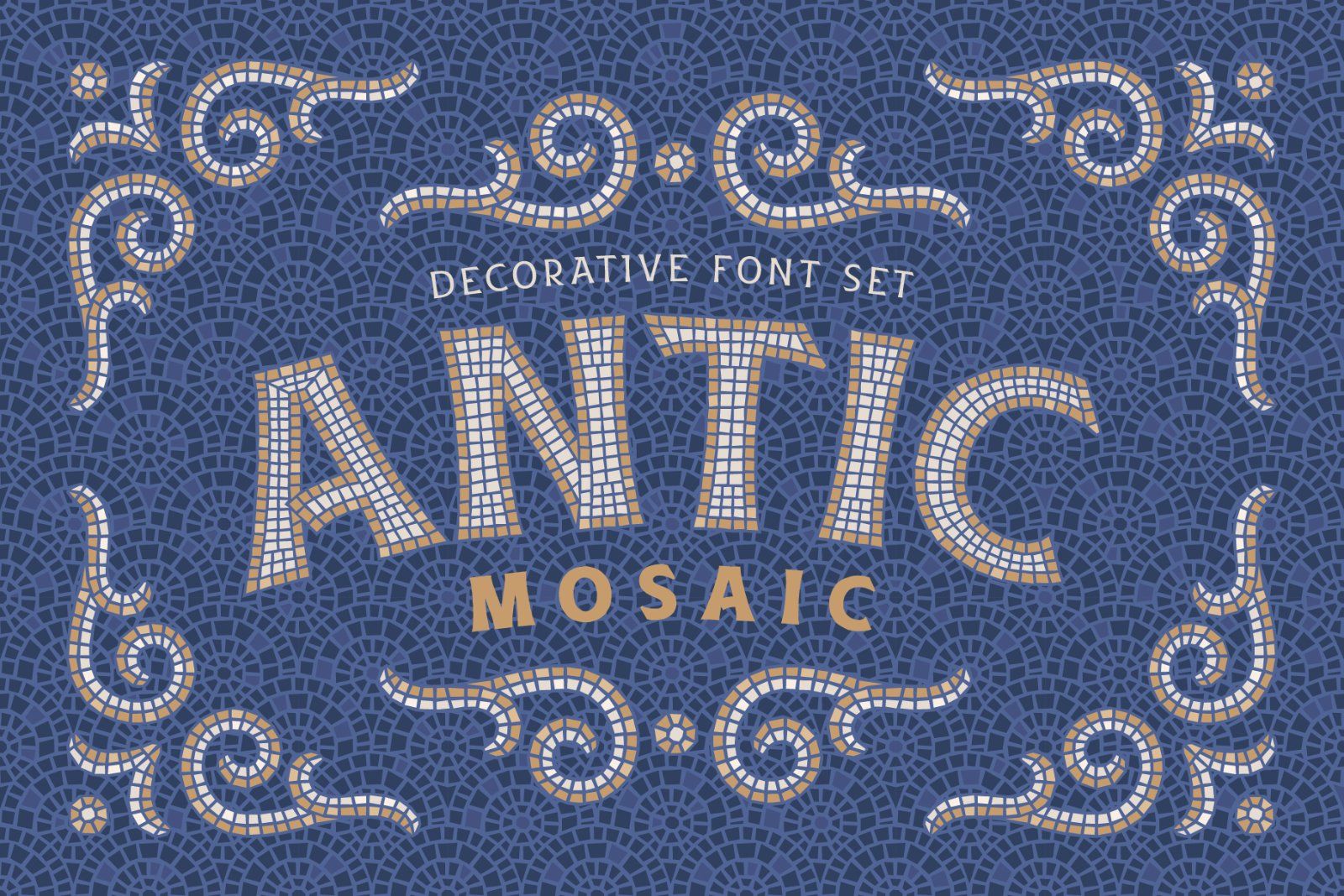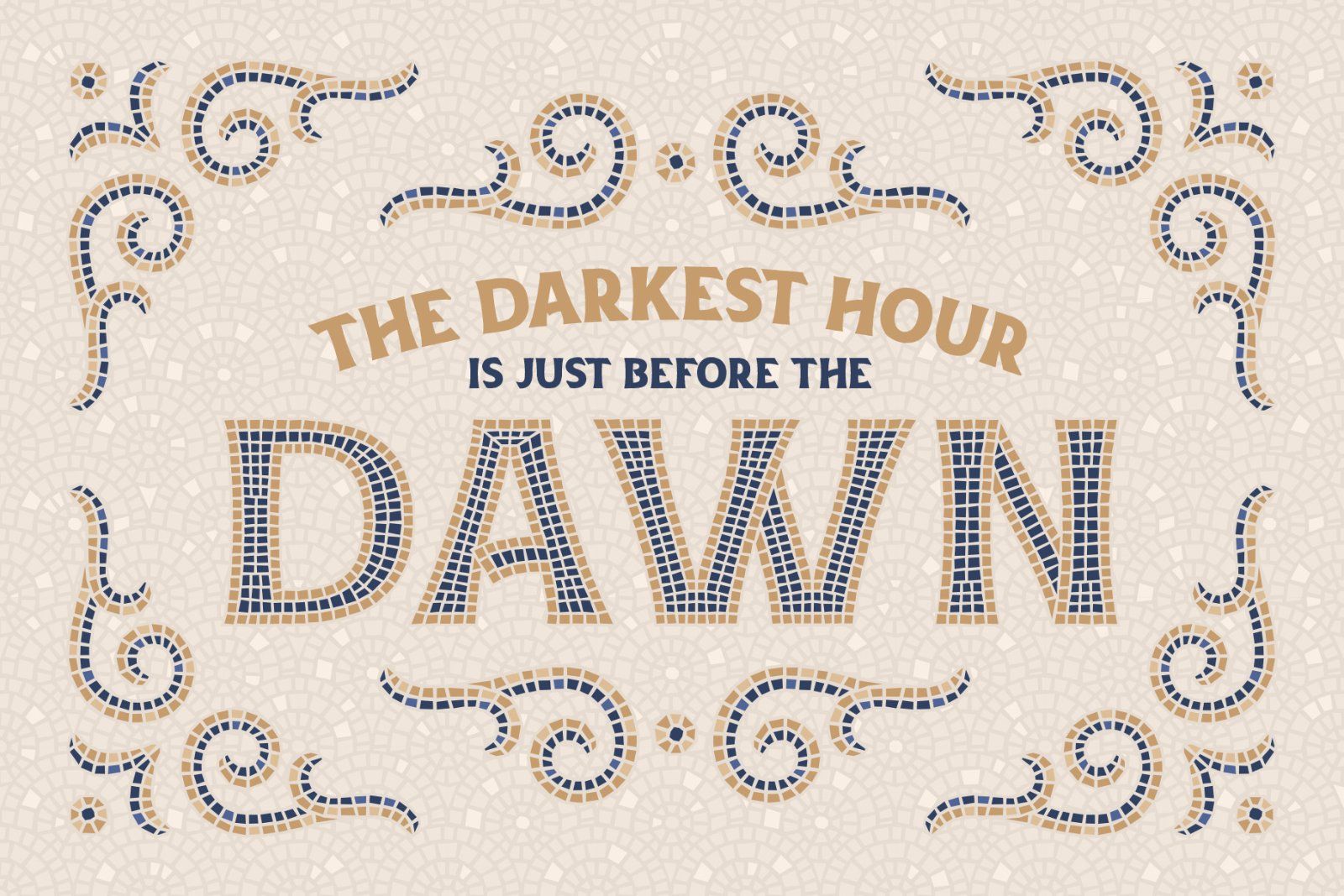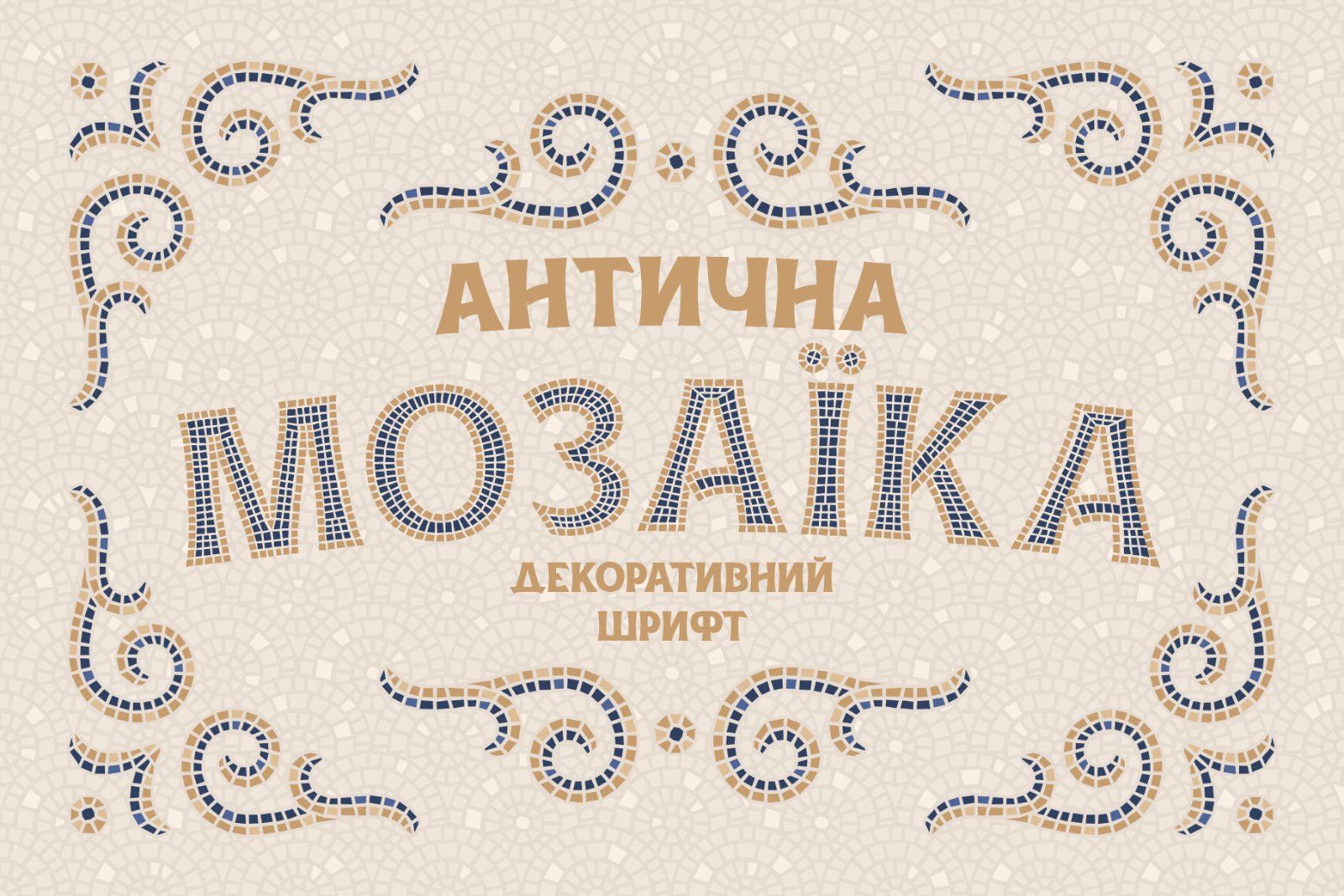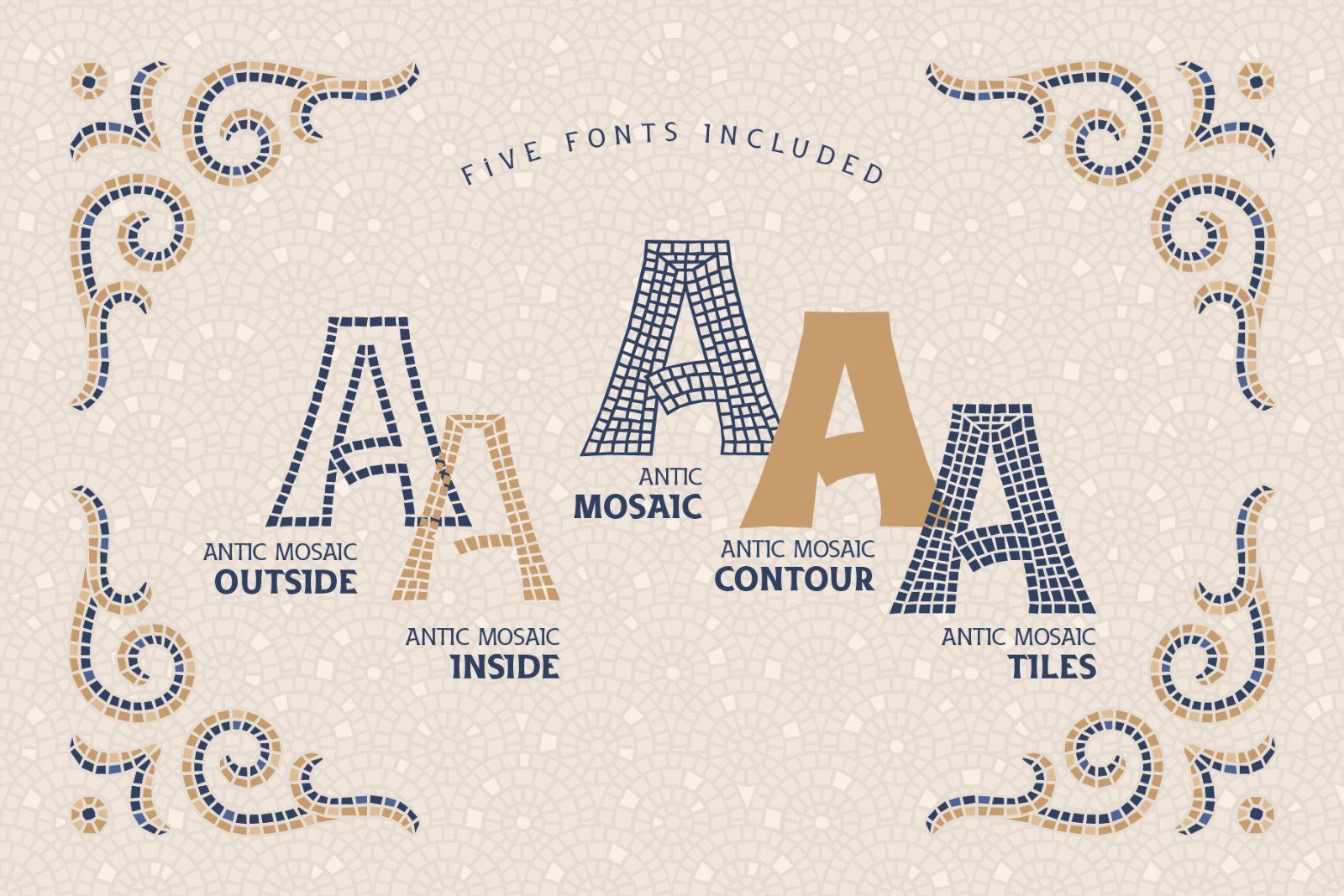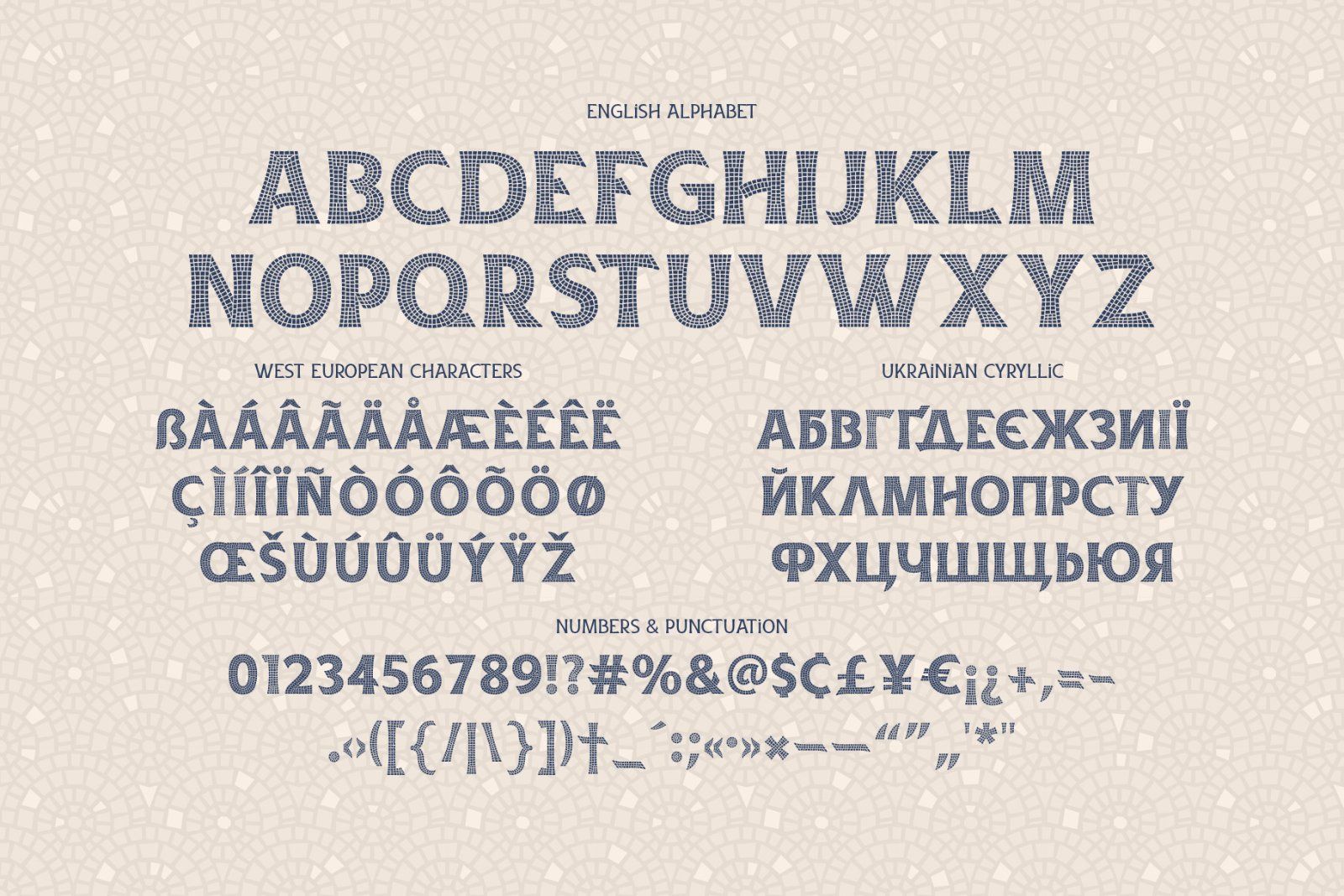
Hello, Introducing a vintage font "Antic Mosaic". It's a decorative typeface made of hundreds of mosaic tiles. Five included font variations will help to create different color combinations. Antic Mosaic supports most of the West European languages and also includes Ukrainian Cyrillic characters (check out the screenshot with all available glyphs). Also as a bonus you'll get two vector lettering posters with decorative ornate and seamless pattern.